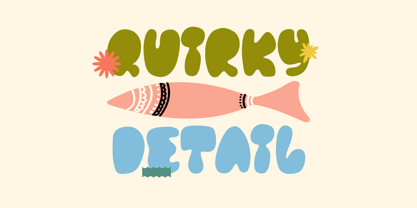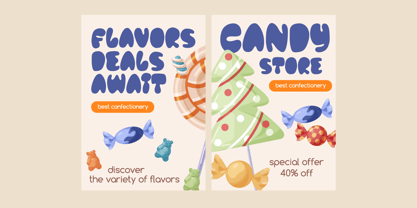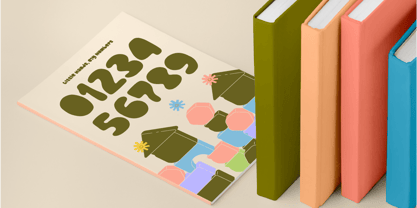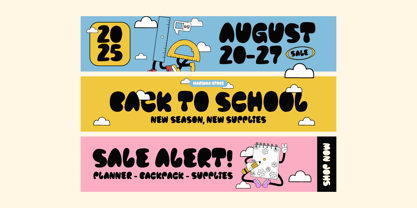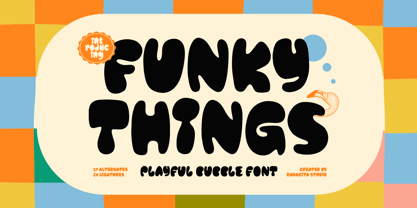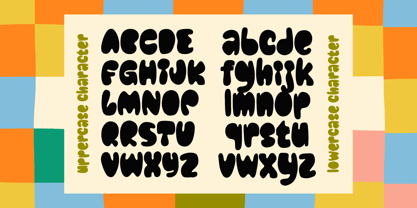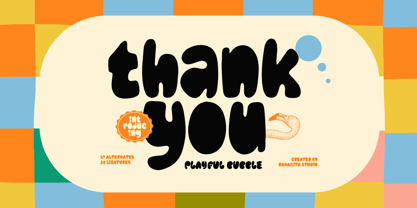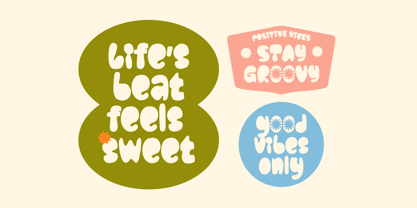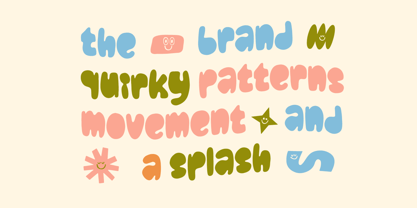
Funky Things
by RahagitaType
The Funky Things Font Family was designed by Setiadi Rahagita and published by RahagitaType. Funky Things contains 1 styles. More about this family
Get ready to add a burst of joy to your designs with Funky Things, a playful bubble font that radiates fun, creativity, and retro charm! Perfectly crafted for projects that need a touch of happiness and movement, Funky Things brings quirky curves, bouncy shapes, and a groovy vibe that stands out anywhere. ideal for posters, packaging, branding, children’s designs, social media graphics, and retro-style typography.